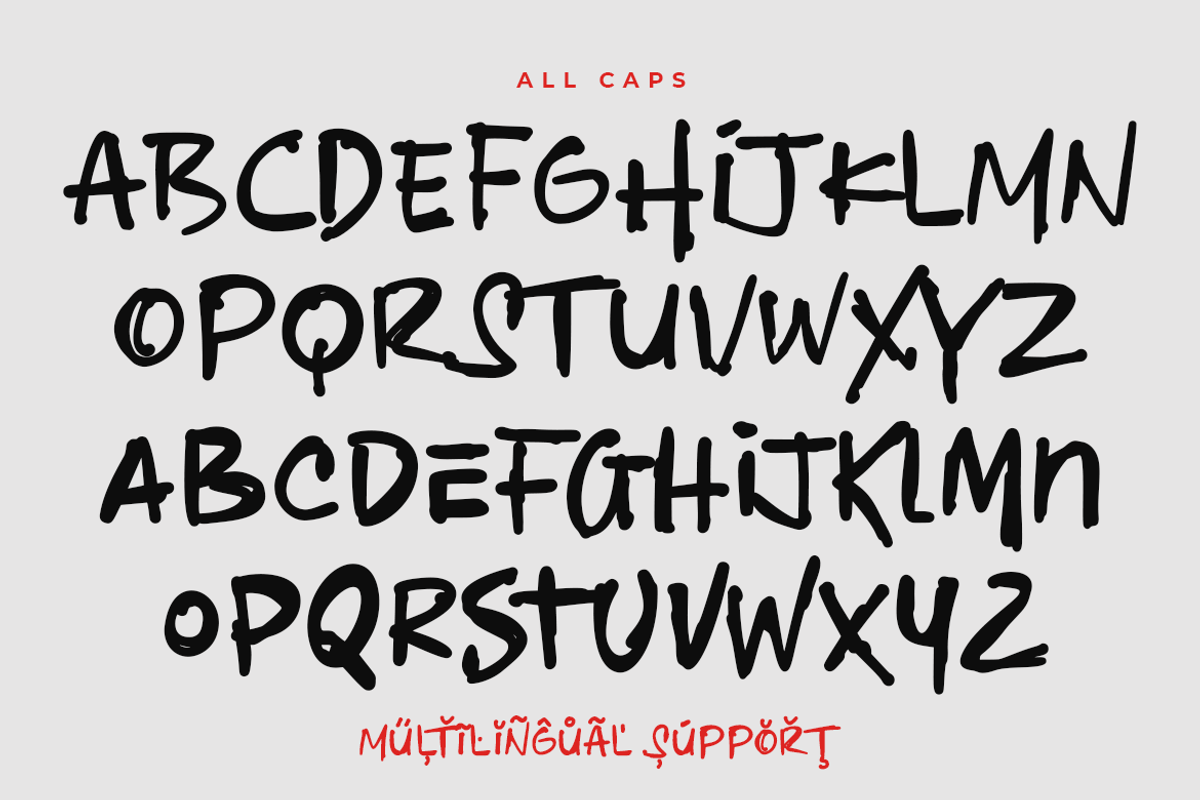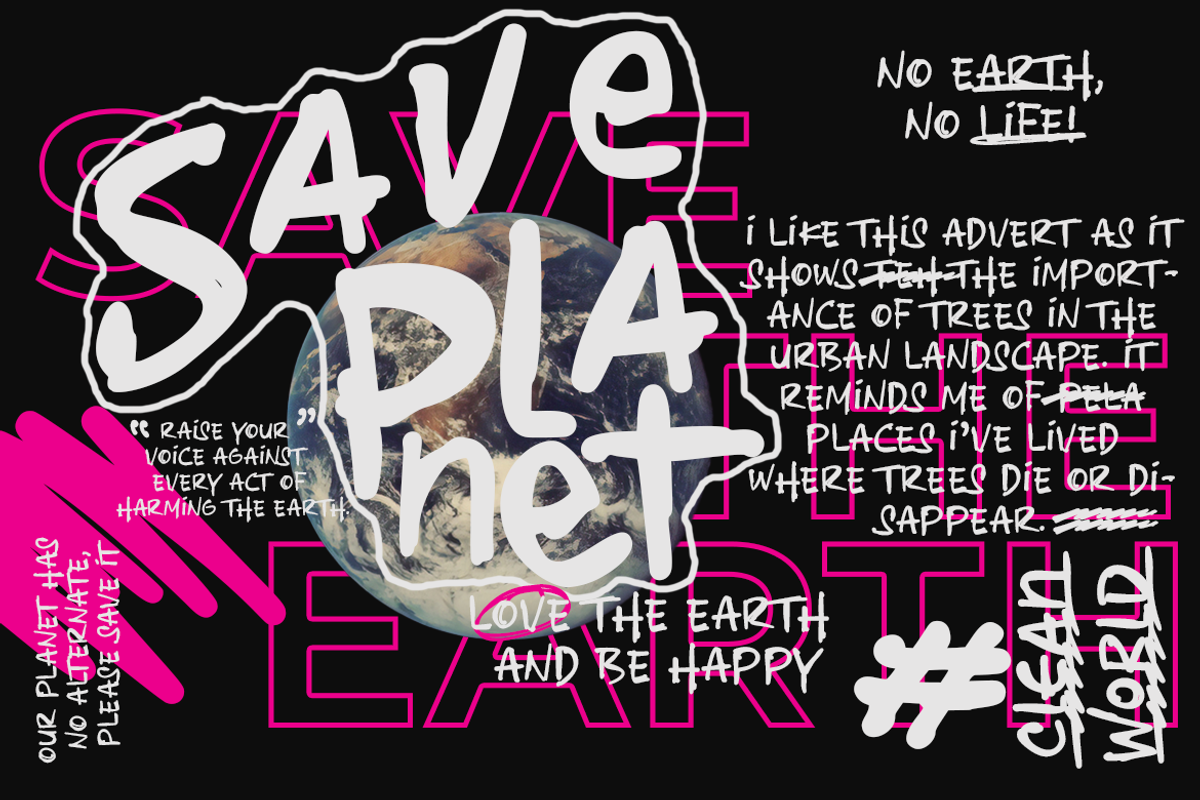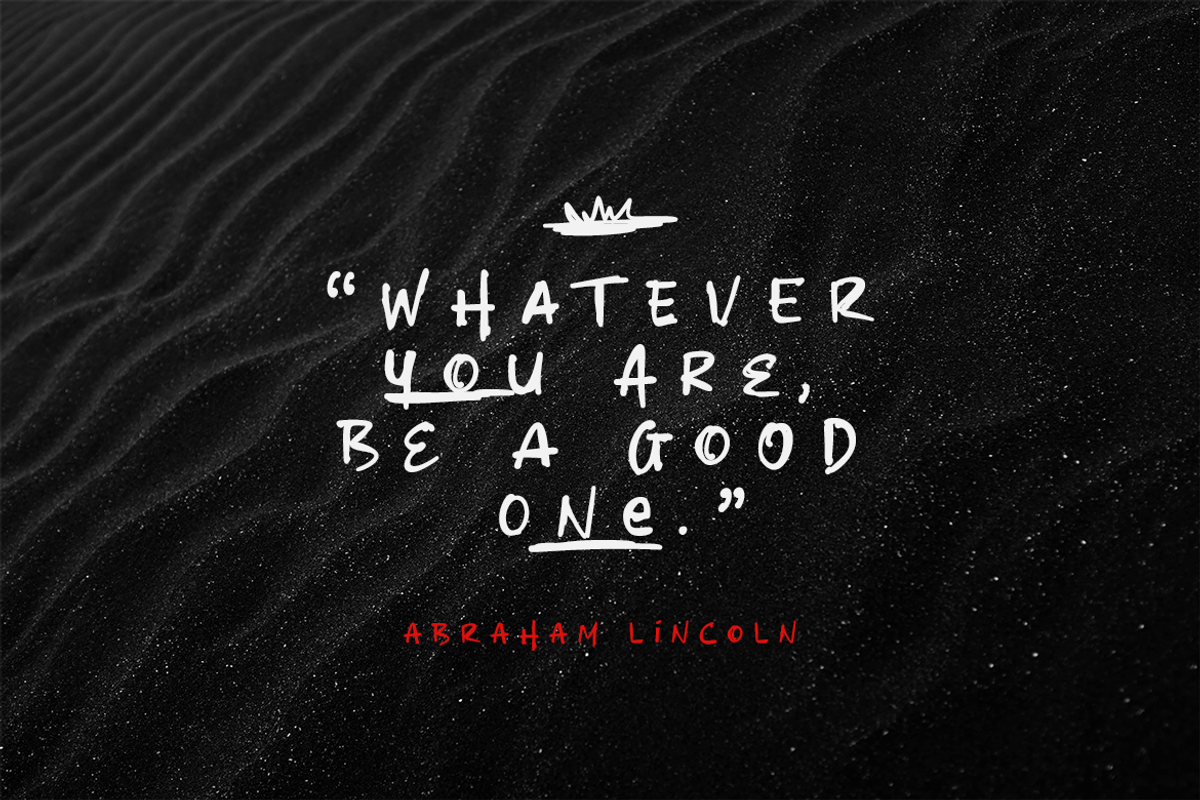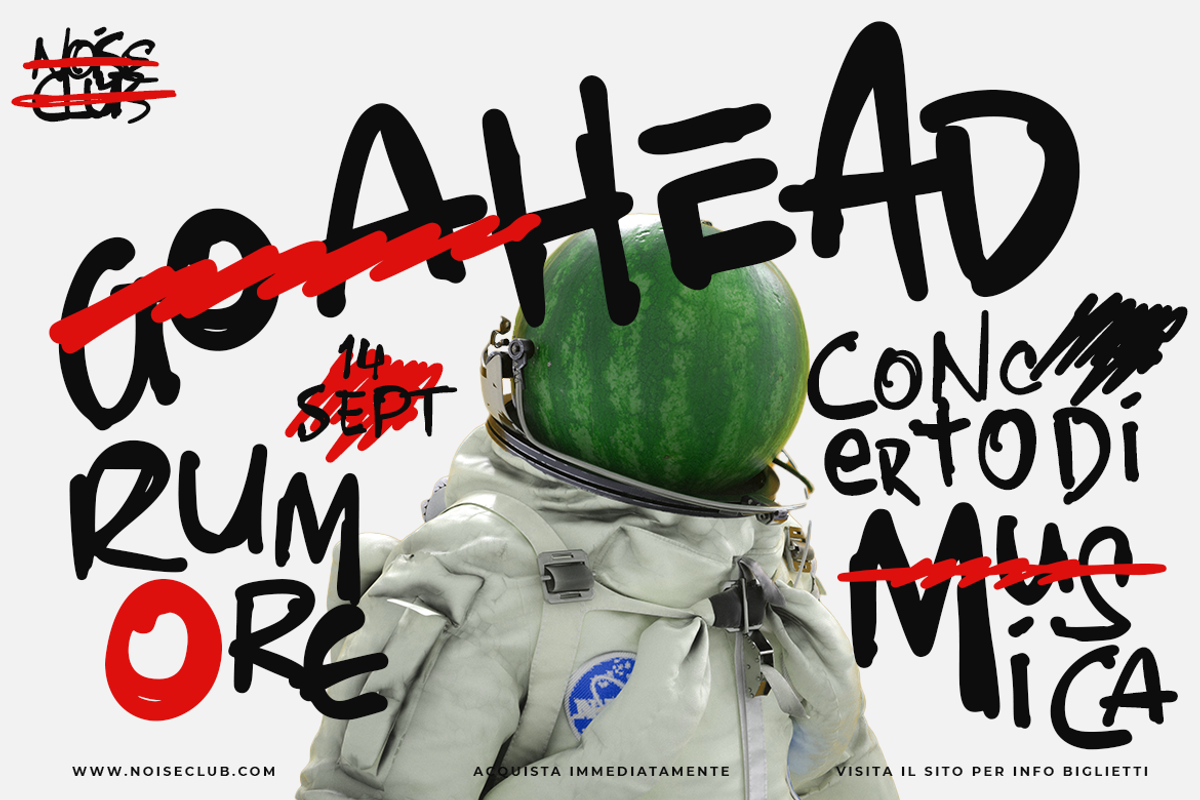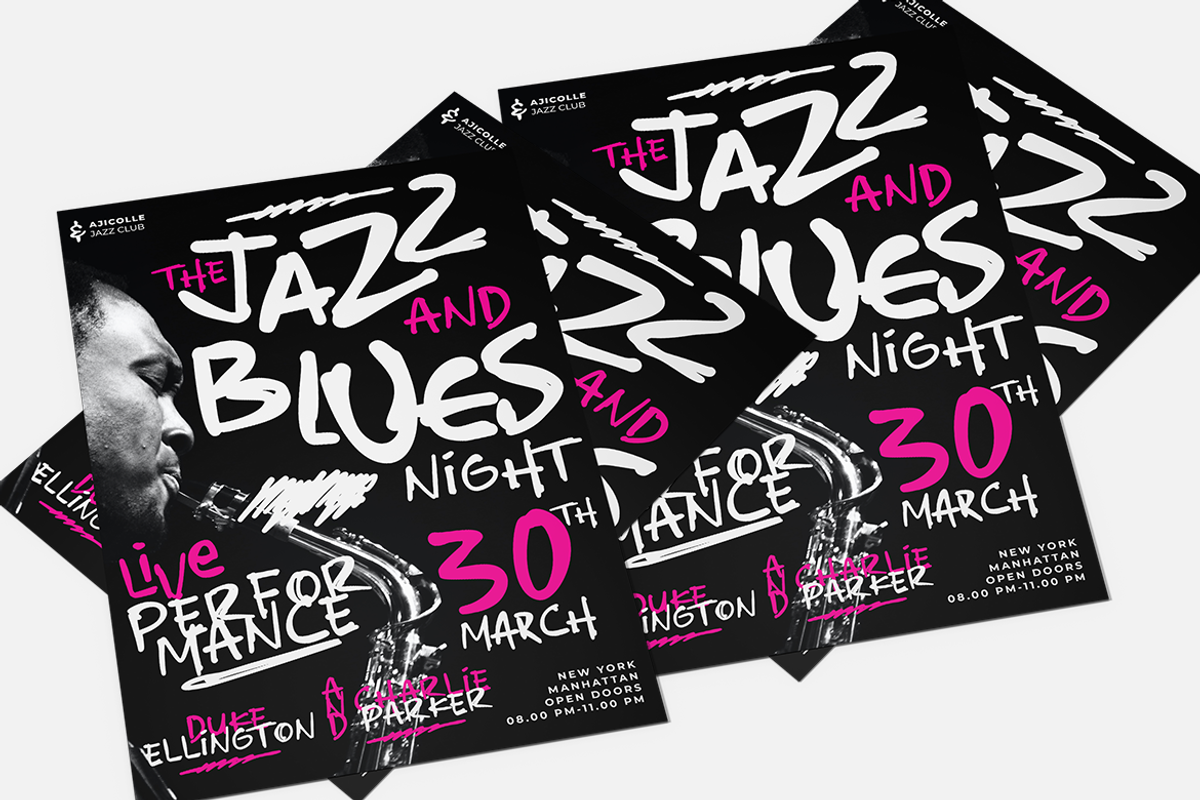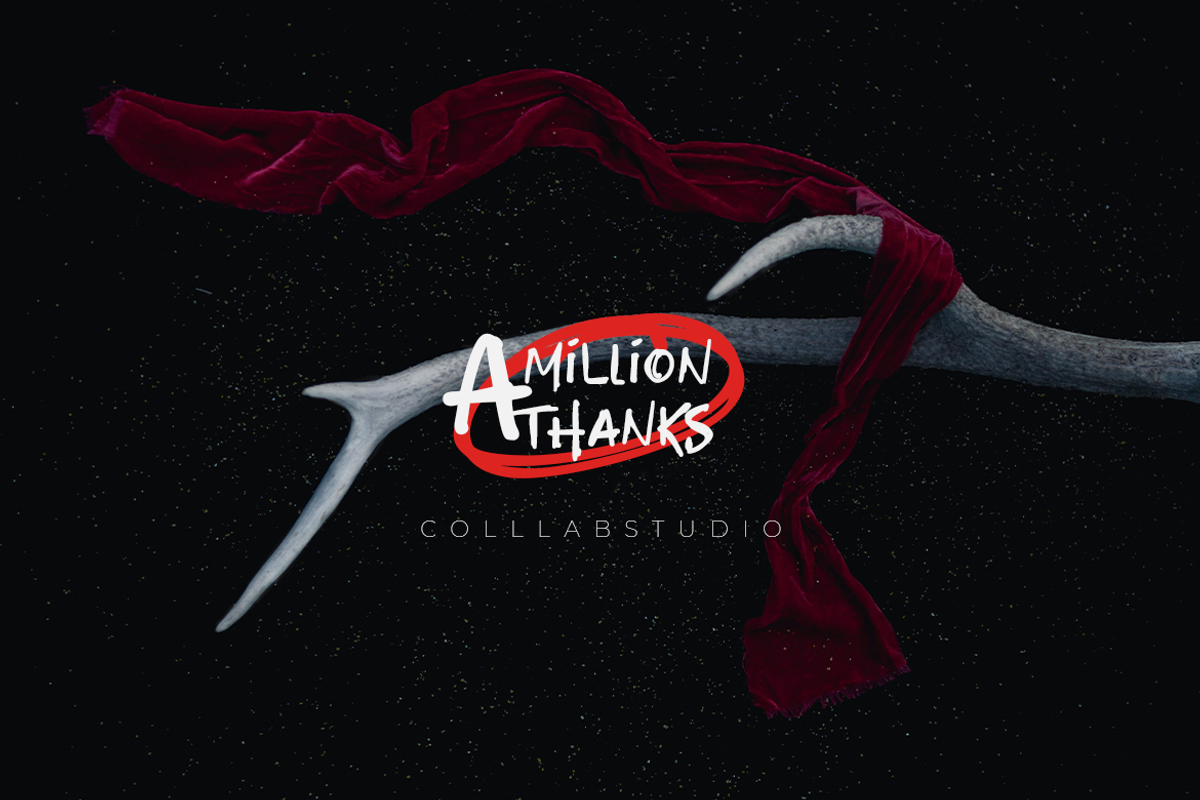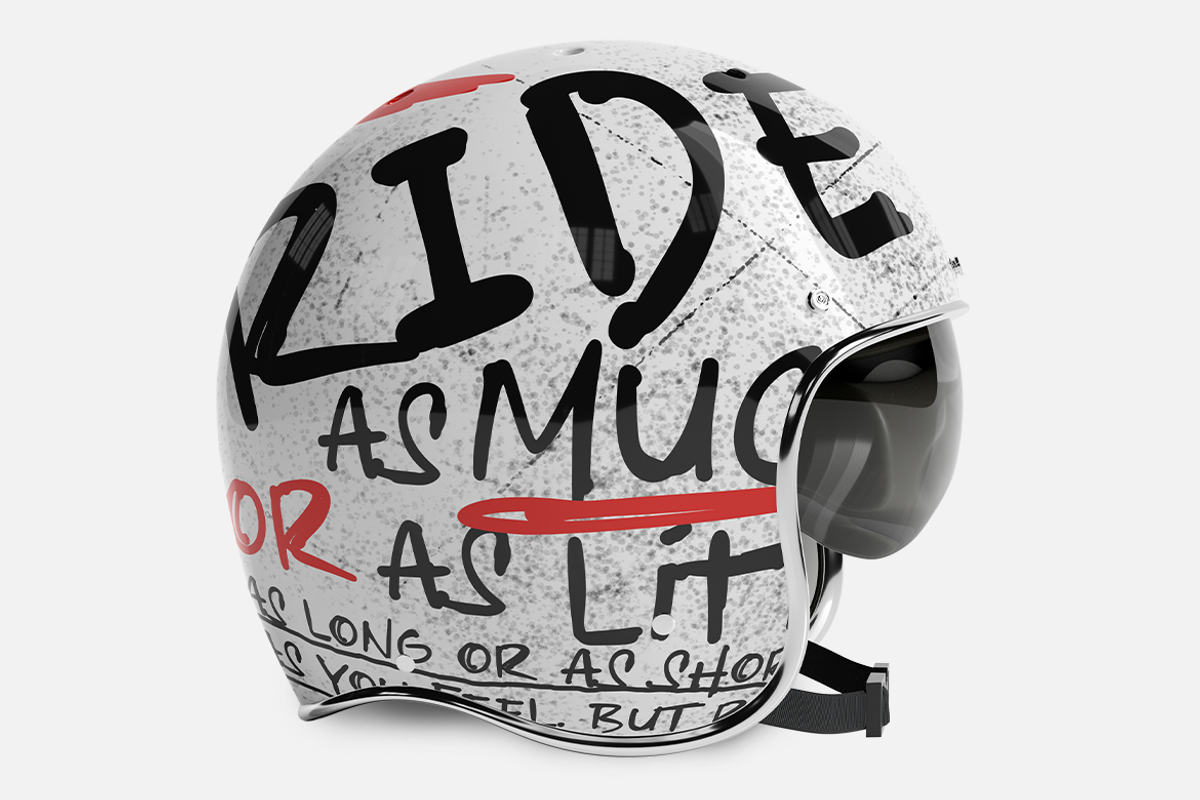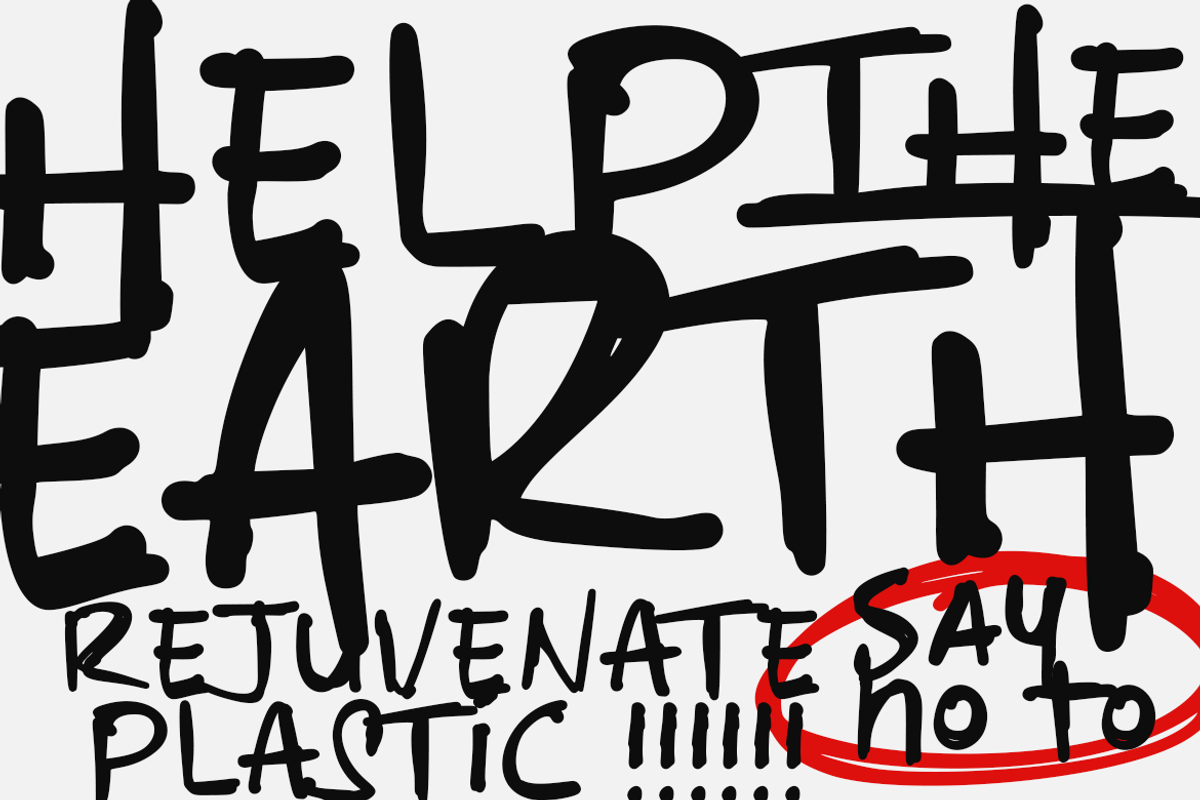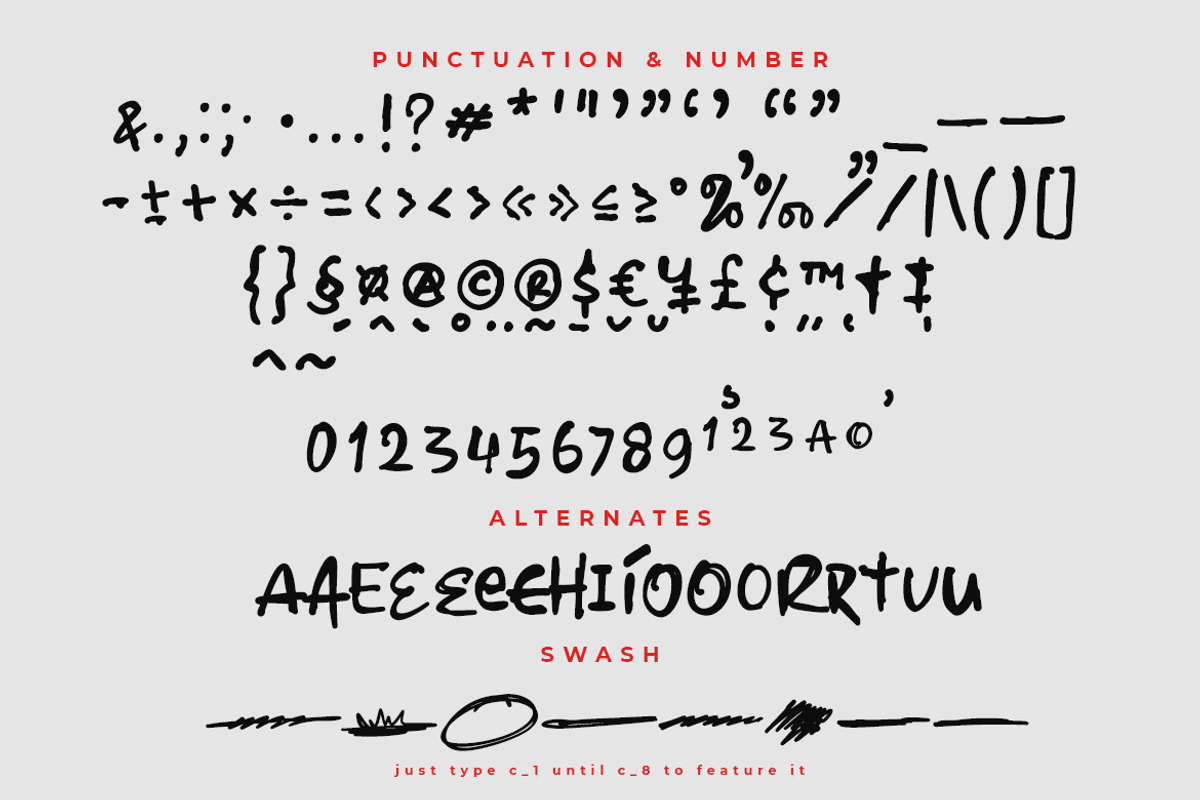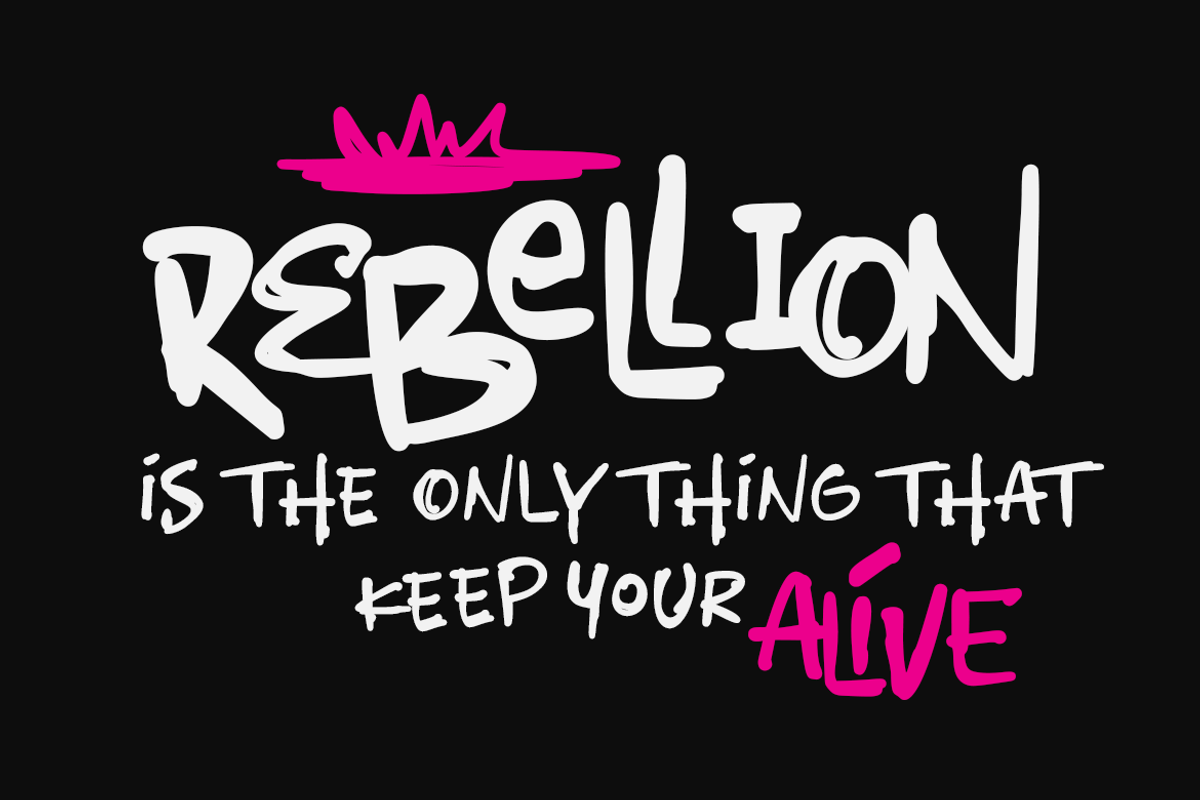
Ganglia Basal | An Urban Font
We’re so excited to finally show you Ganglia Basal, a font that embodies the spirit of rebellion!
Ganglia Basal is an urban font that will add a new flavor to your design, whether you’re working on a flyer for a local music festival or designing a hilarious lyric video for your newest song or create your merch.
The bold but versatile letterforms will make your design stand out, as it should—after all, you’re in the heart of the city.
- Swashes & Ligatures
- Stylistics alternates
- Multilanguage Support ( 78 Languages )